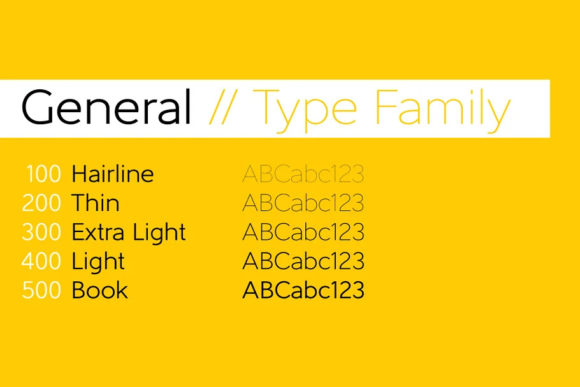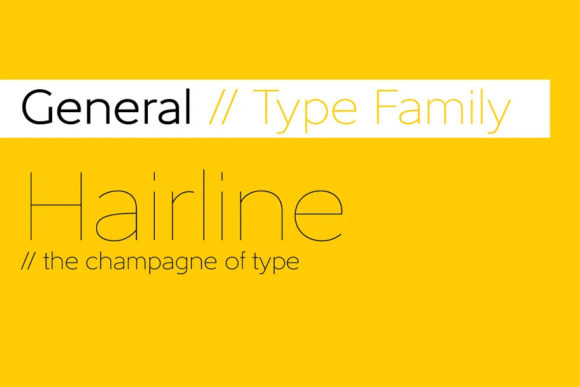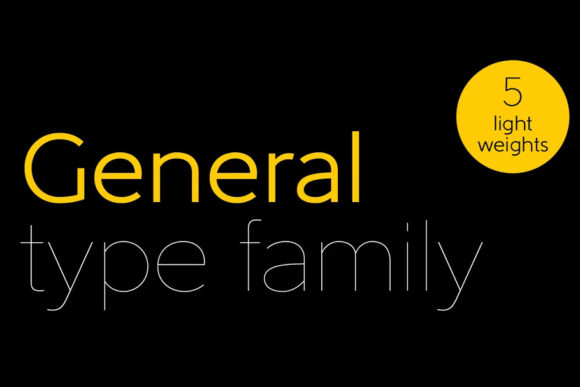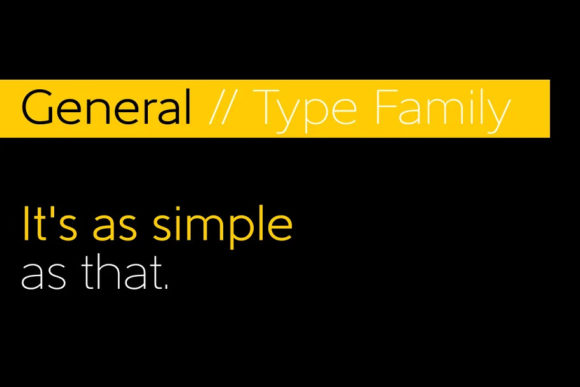
The Perfect Balance: Unveiling the General Font
Have you ever found yourself staring at a blank page, trying to decide on the perfect font to convey your message? The struggle is real, but what if I told you there’s a typeface that can effortlessly bridge the gap between tradition and modernity? Meet the General Font, a sans serif font family that’s been making waves in the design world.
Published by Juraj Chrastina, General Font is a masterclass in subtlety, with five styles that exude a sense of sophistication and elegance. Its unique blend of pure geometry and human touch makes it a valuable asset for designers looking to create clean and effective designs. Whether you’re a seasoned pro or a newcomer to the world of typography, the General Font is a strong tool that’s sure to become a staple in your design arsenal.
General Font Review
Overall, I’d say General Font is a decent choice for body text. Here are some things that work well: ✨ It’s clean and easy to read, even at smaller font sizes. ✨ The font is highly legible, making it perfect for large blocks of text. ✨ It’s also relatively lightweight, which is great for reducing page load times.
However, there are some limitations to consider: ⚠️ The font can feel a bit generic and lacks personality. ⚠️ It may not be the best choice for headings or titles, as it can feel too plain. ⚠️ Some users may find the font too similar to other fonts, which can make it harder to distinguish.
Ultimately, I’d recommend using General Font for body text, but you may want to consider using a different font for headings or titles. It’s a solid choice, but it’s not particularly exciting.
Design Decisions
- Use General Font for body text
- Consider using a different font for headings or titles
- Avoid using General Font for titles or emphasis
Tips for Getting the Most Out of General Font
Use General Font for body text in reports, articles, and other documents where a clean and neutral font is required.
Experiment with different font sizes and styles to create visual hierarchy and emphasis in your designs.
General Font is commonly used in:
- Body text in reports and articles
- Product descriptions and labels
- Presentations and slide titles